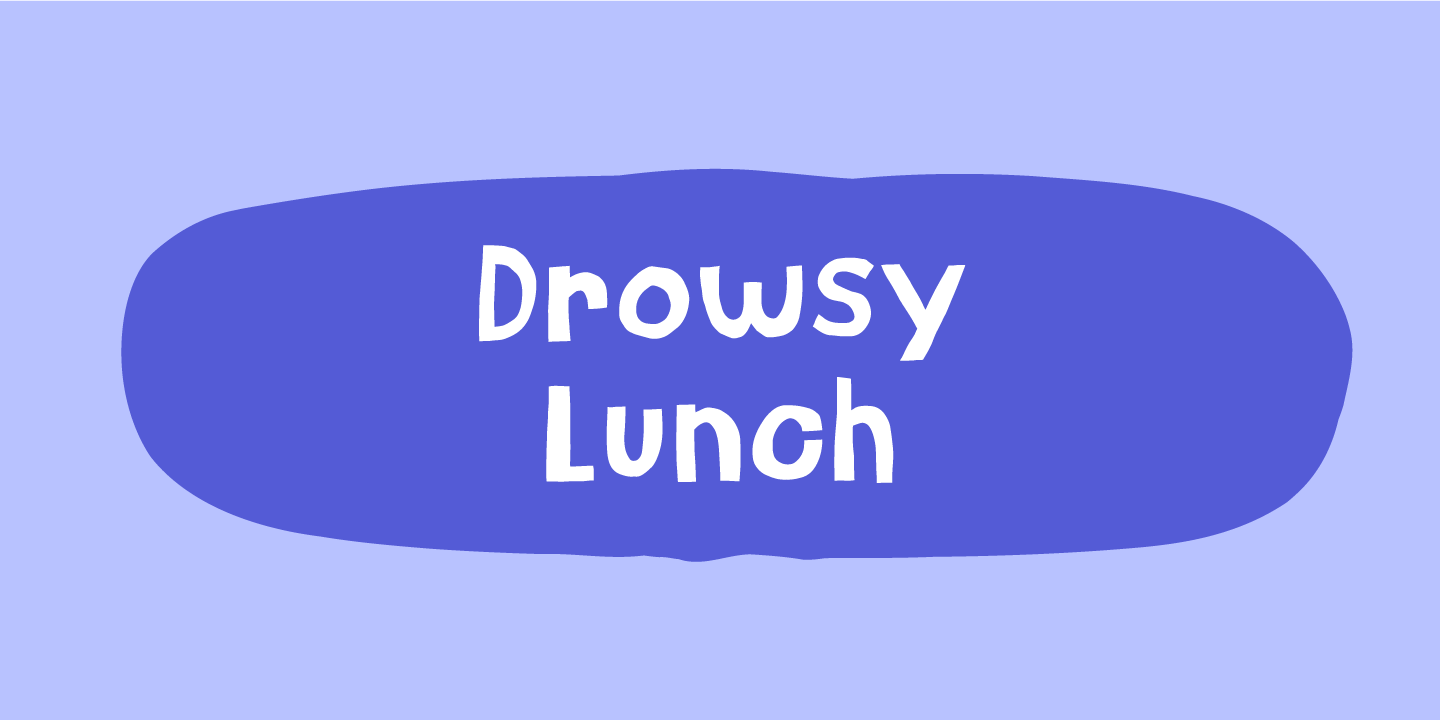
Drowsy Lunch Font is a wonderfully unique and evocative typeface, perfect for designs that aim to capture a relaxed, whimsical, or subtly nostalgic mood. Imagine it bringing a charmingly sleepy touch to the menu board of a cozy, independent cafe, adding a playful, dreamy element to a children's storybook, or providing a genuine, homemade look to invitations for a casual, laid-back gathering. Its often organic, slightly irregular forms, and a hint of hand-drawn character make it ideal for creative digital content, artisanal product packaging, and any print materials where a sense of quiet charm or artistic individuality is desired. From a quirky food blog to a gentle branding identity, this font infuses designs with personality and a memorable, comforting quality.
What makes Drowsy Lunch Font so exciting is its ability to convey a specific, subtle emotion – that feeling of a relaxed afternoon or a cozy, unhurried moment. It often features letterforms that have a gentle wobble, a soft irregularity, or a slightly "bouncy" baseline, giving it a unique, endearing personality that breaks away from rigid perfection. This isn't a loud or aggressive font; its power lies in its ability to evoke warmth, comfort, and a touch of innocent playfulness. It can make any text it's applied to feel more approachable and personal, inviting the viewer into a relaxed space. This distinct character is what truly sets Drowsy Lunch Font apart.
The Drowsy Lunch Font family typically focuses on delivering its unique, expressive style with charm and consistency. While it might not have an extensive range of traditional weights like a versatile sans-serif, you can generally expect to find a finely crafted Regular weight, often accompanied by bold versions or stylistic alternatives that further enhance its distinctive aesthetic. These variations are designed to provide flexibility within its specific style, allowing designers to create compelling headlines, subheadings, and decorative elements that maintain the font's endearing and charming appeal across different applications.